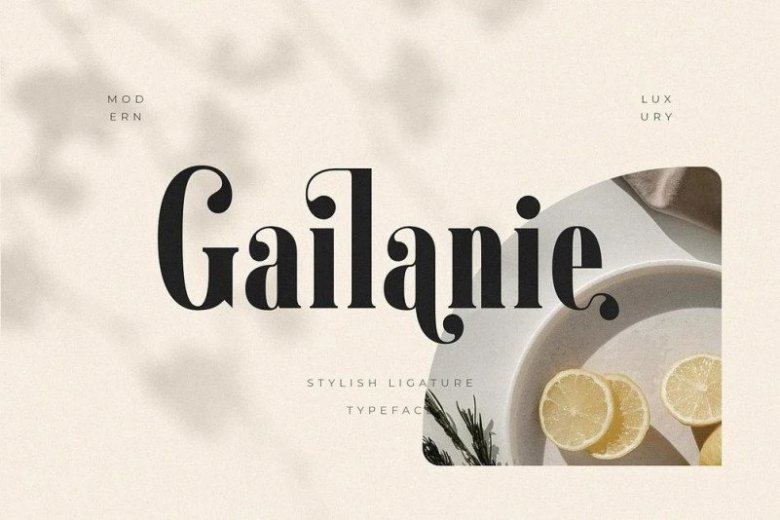
Gailanie Font
This is modern serif font, every single letters have been carefully crafted to make your text looks unique. Made from font designer named Epicatype Studio. It’s a modern typeface with an elegant style, it is perfect for; branding, logos, invitation, head titles, text, posters, product packaging, and plenty more!